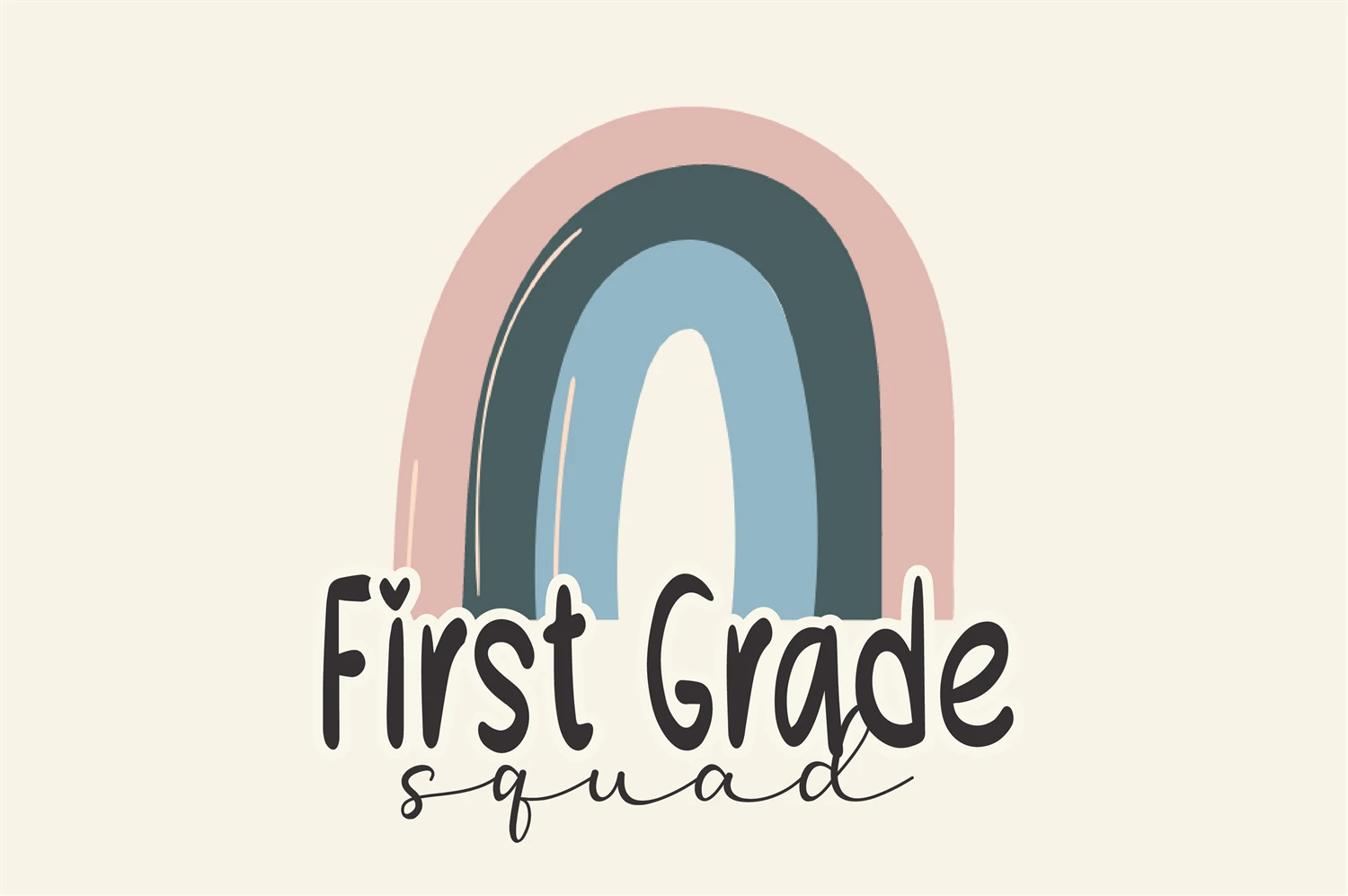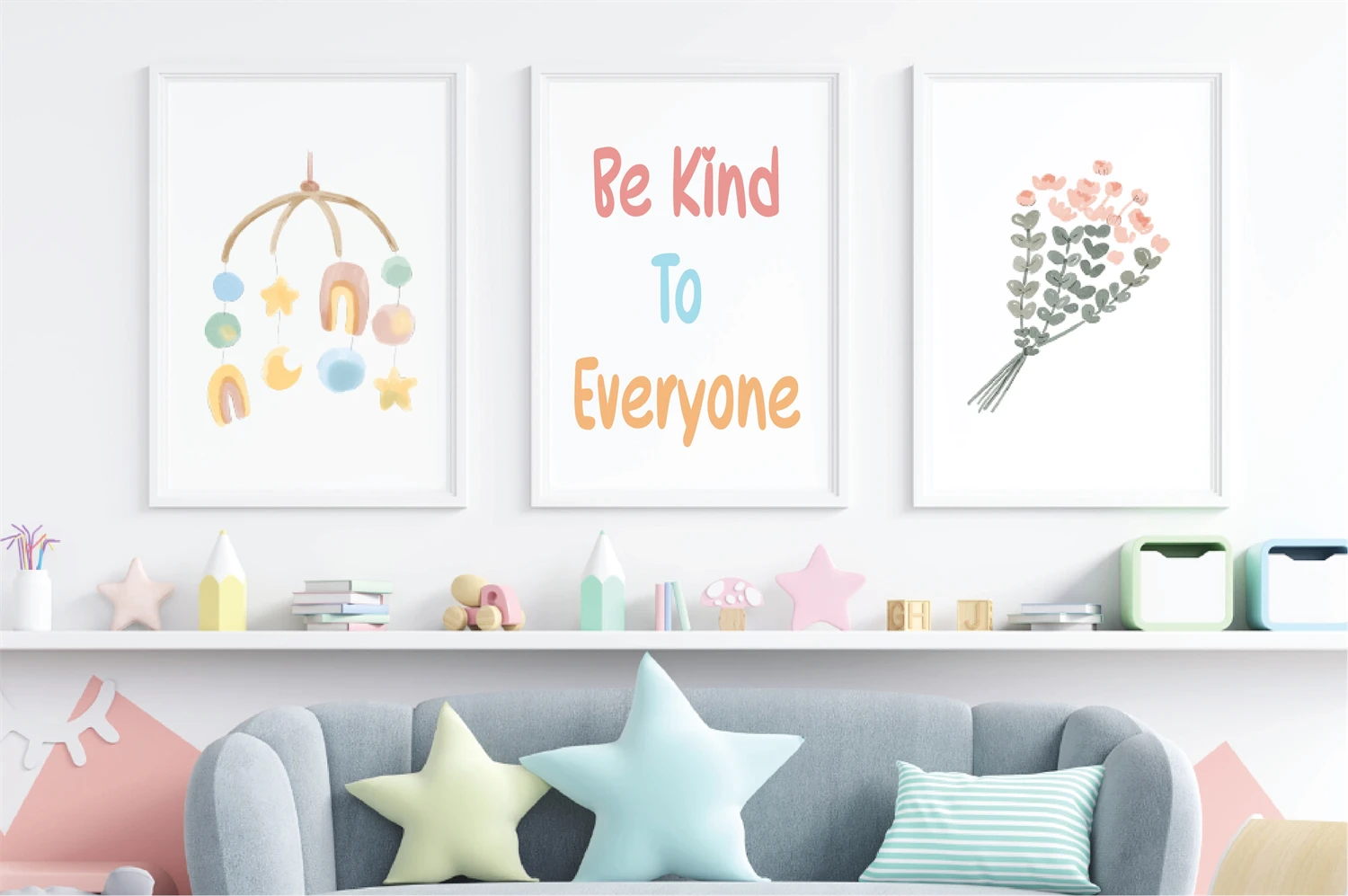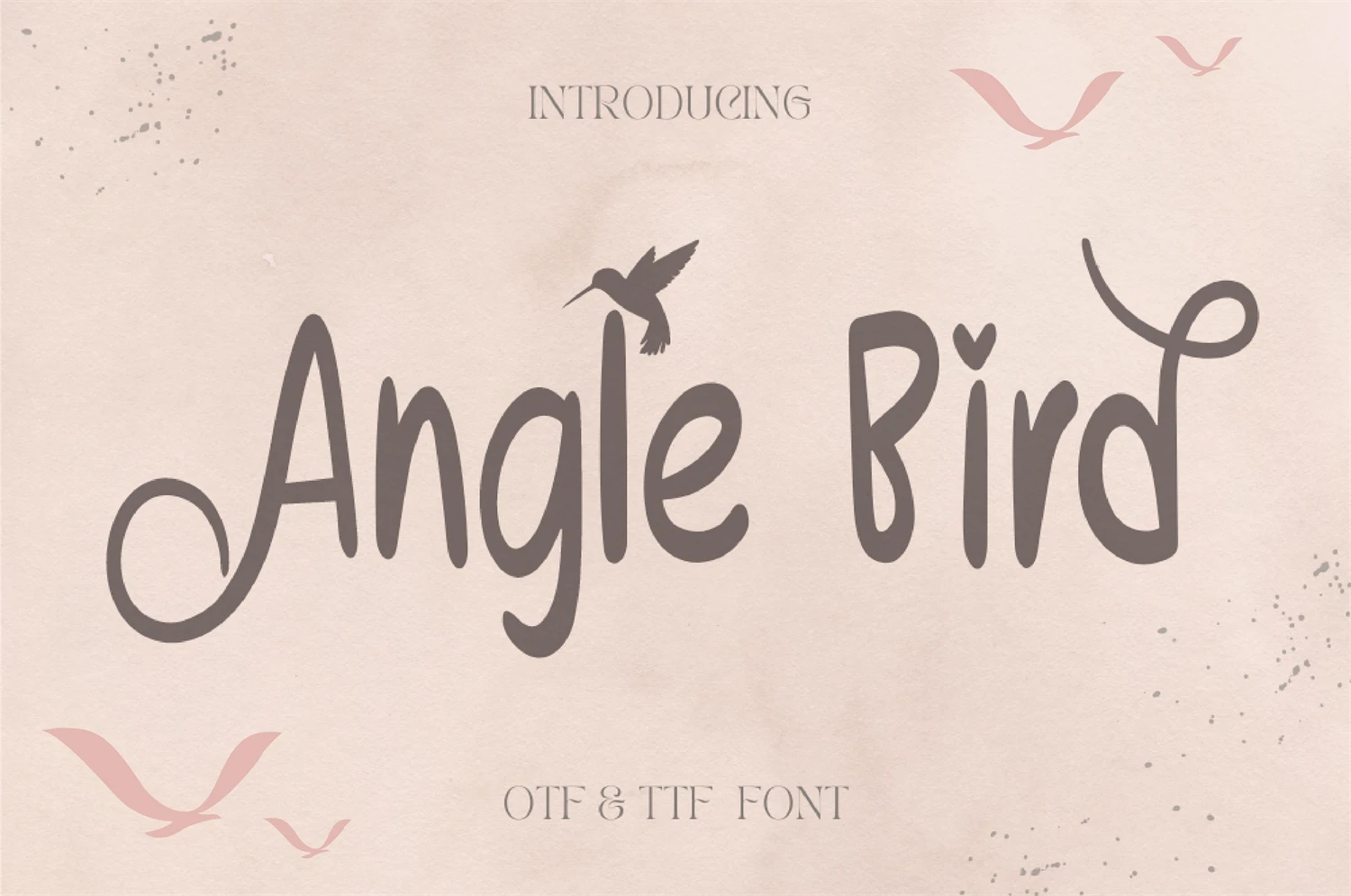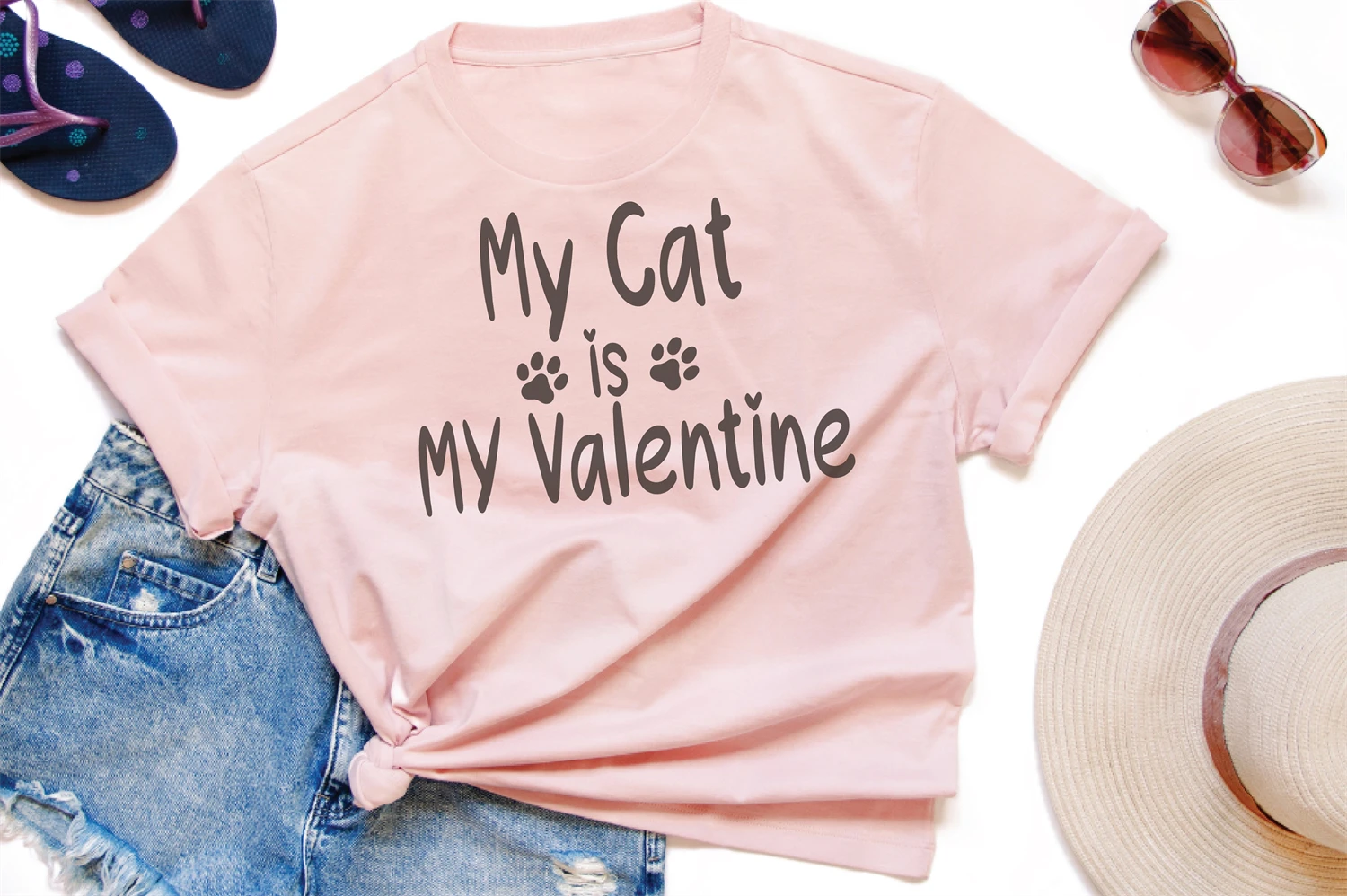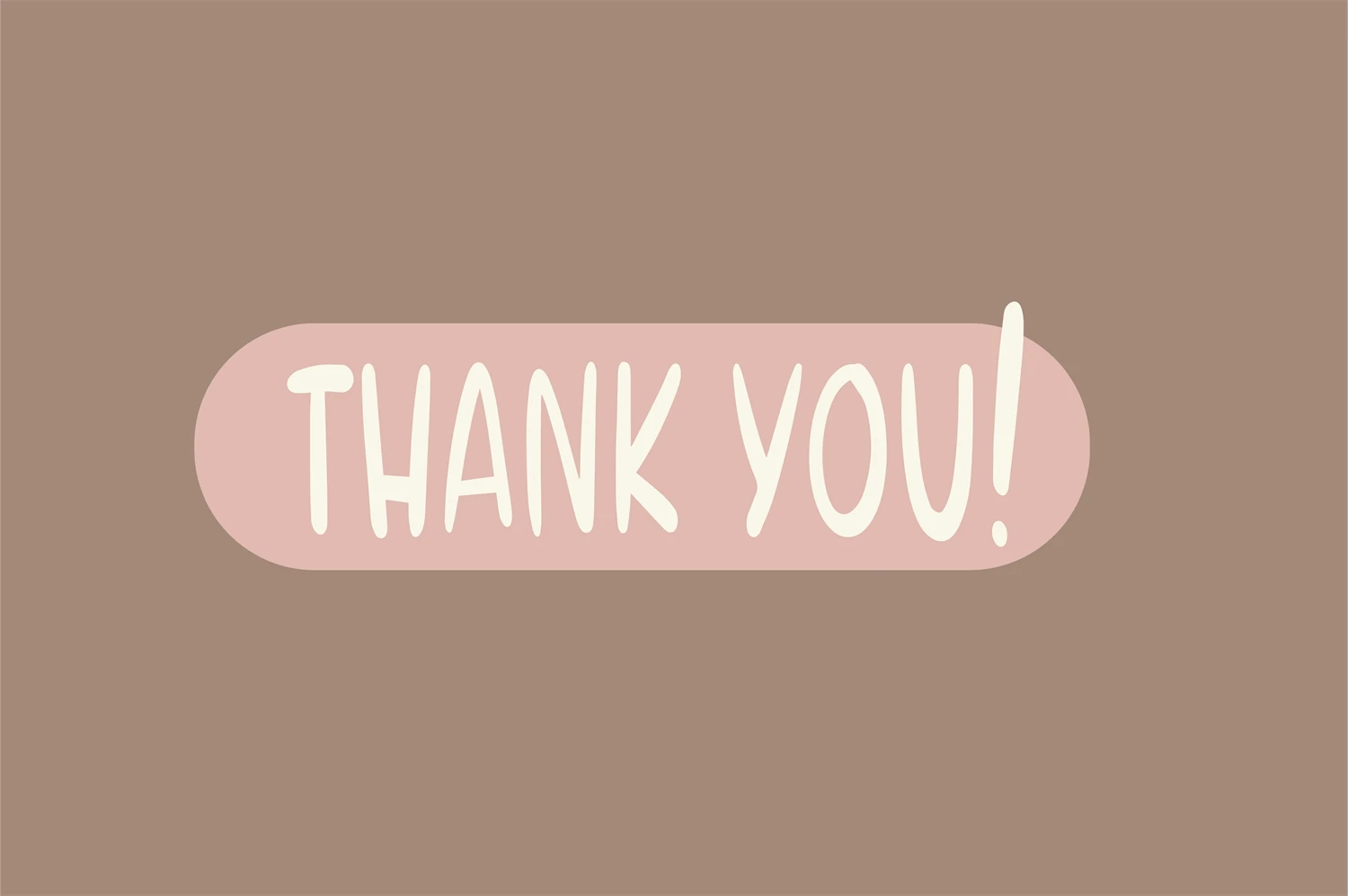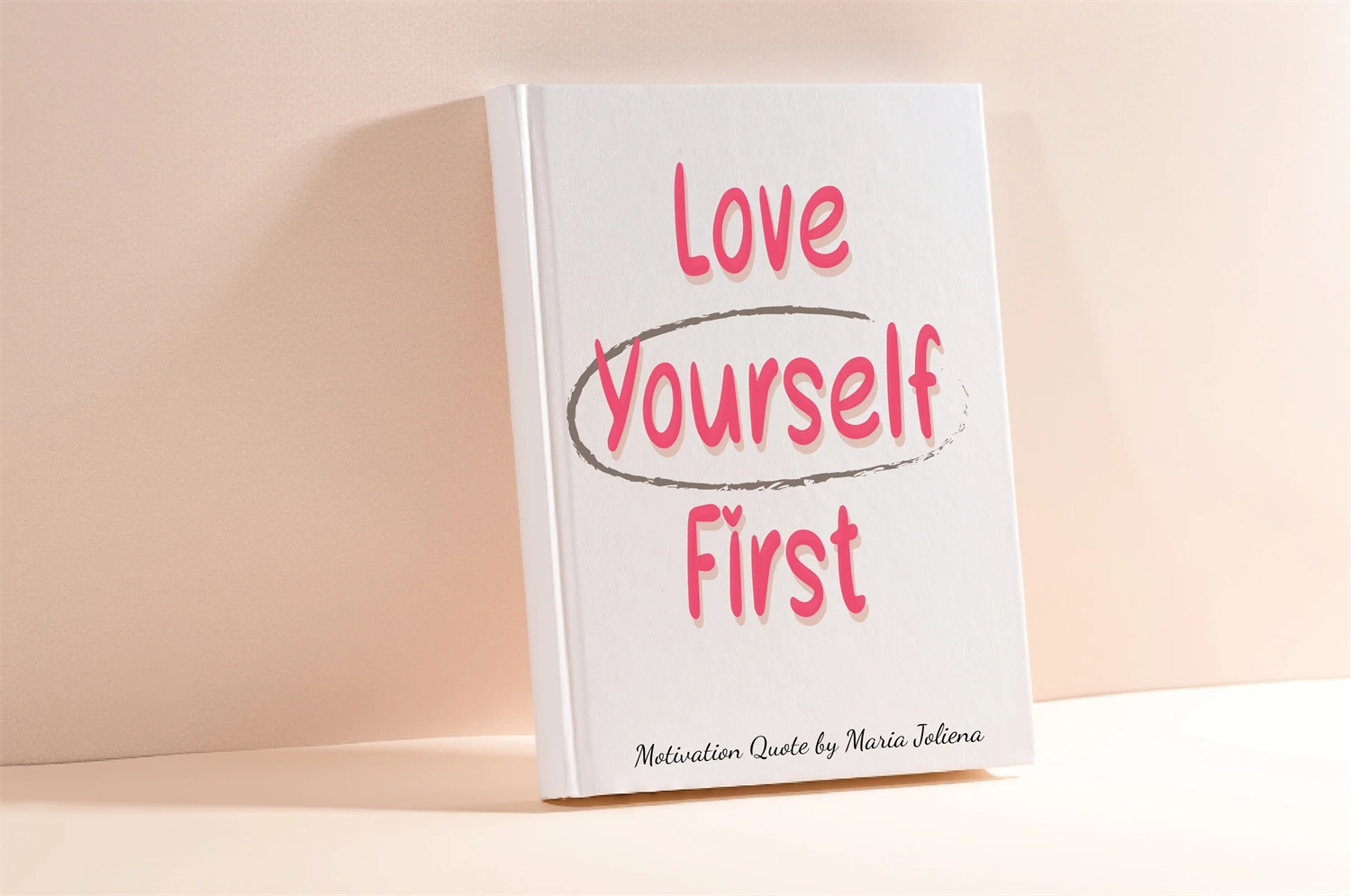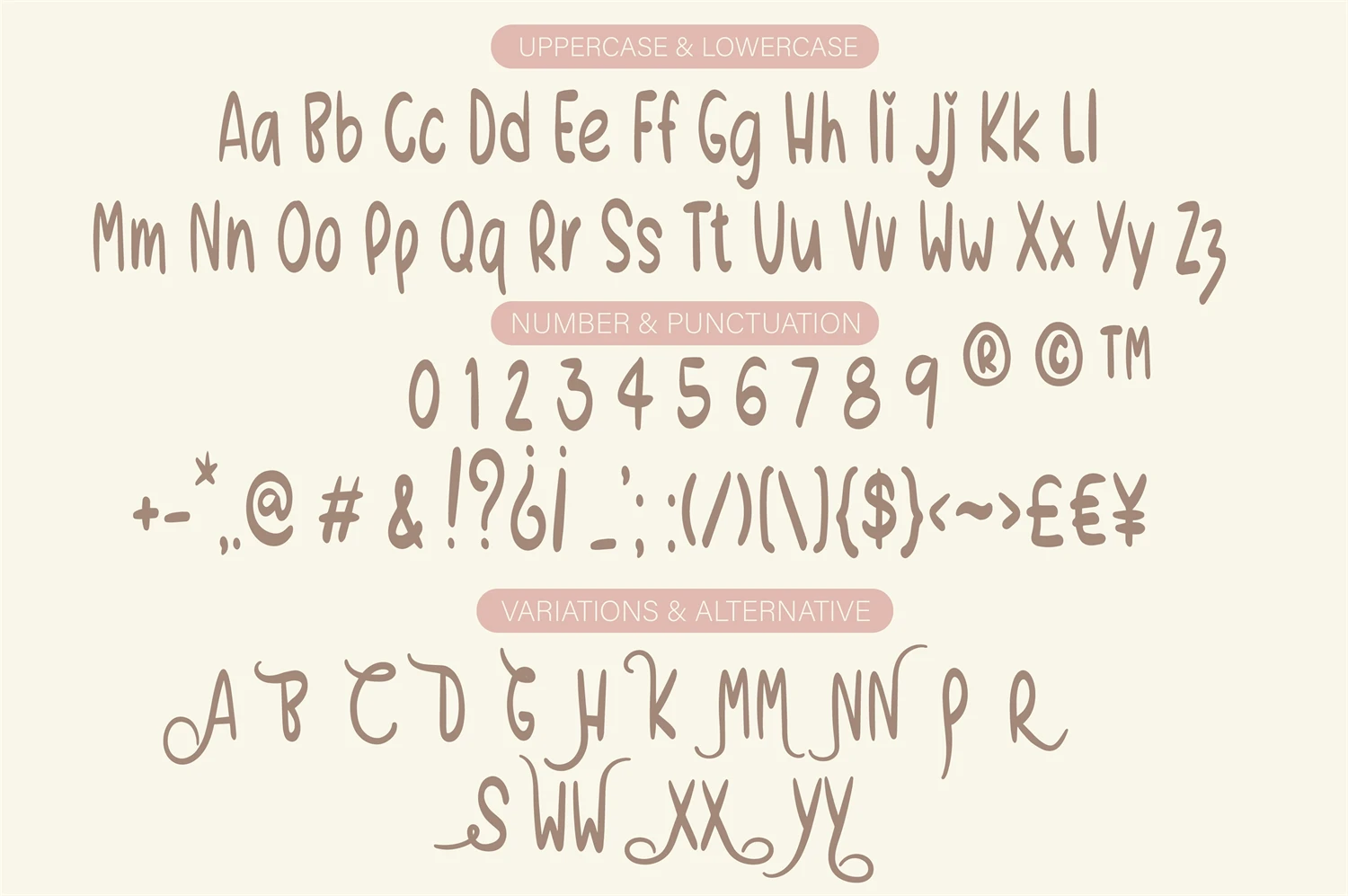
Angle Bird is a fun and casual handwritten font. Whether youre using it for crafts, digital design, presentations, or making greeting cards, this font has the potential to become your favorite go-to font, no matter the occasion!